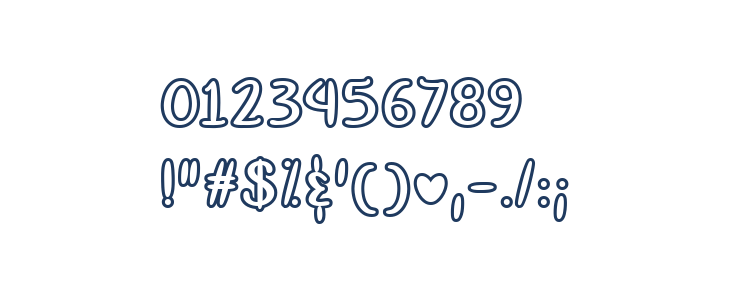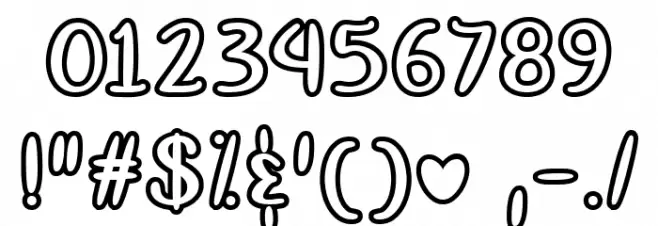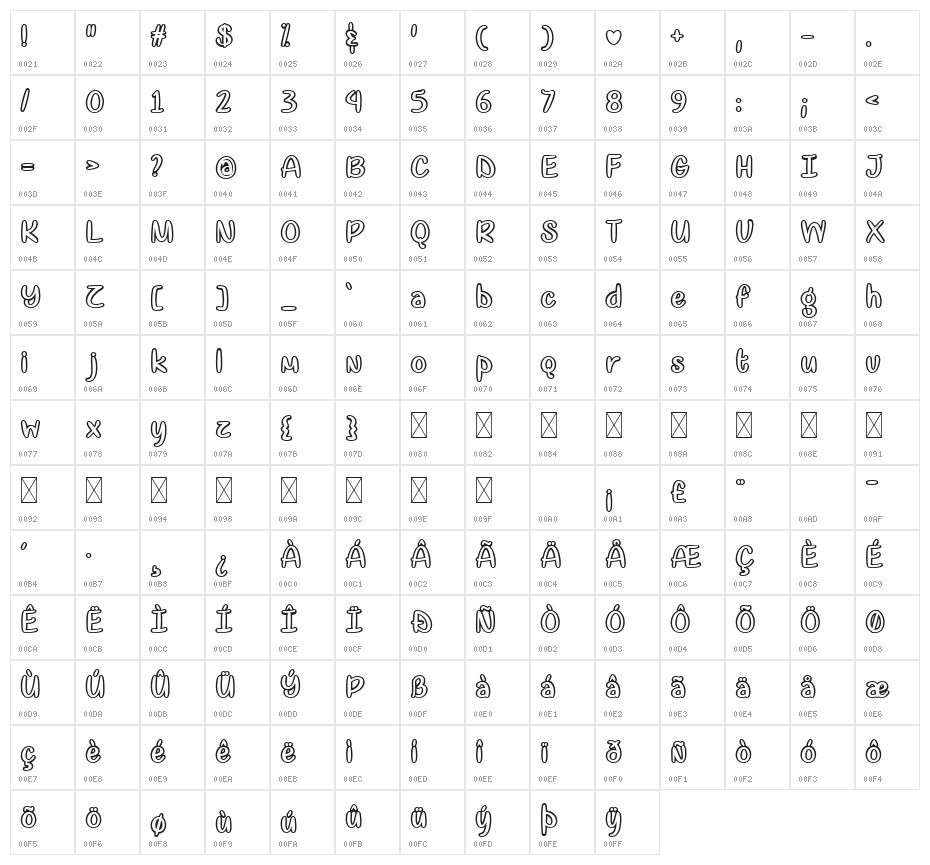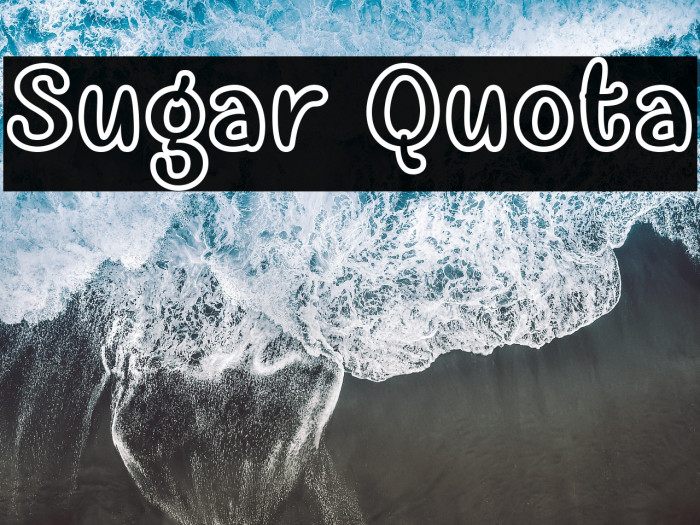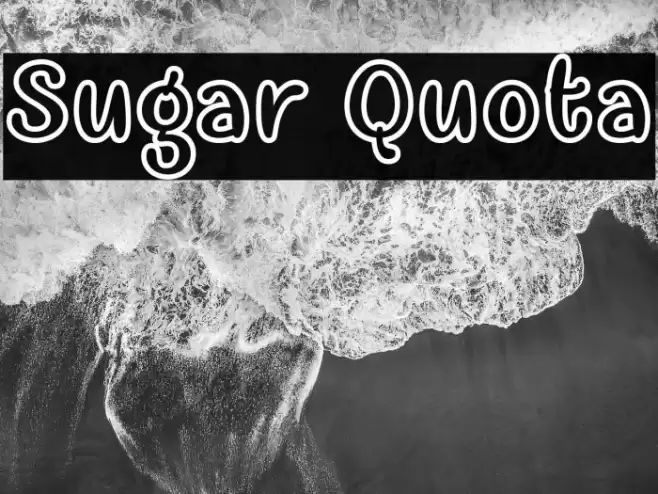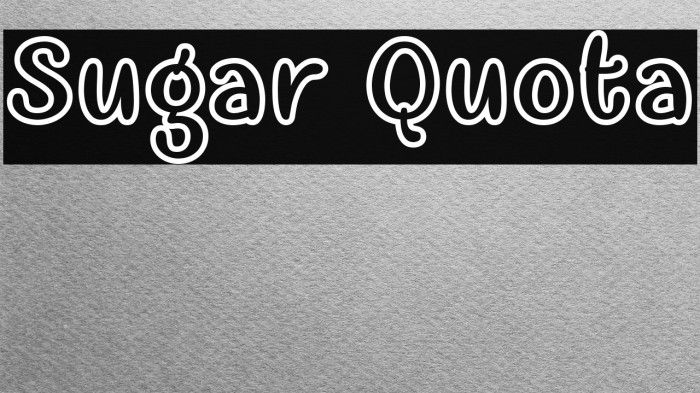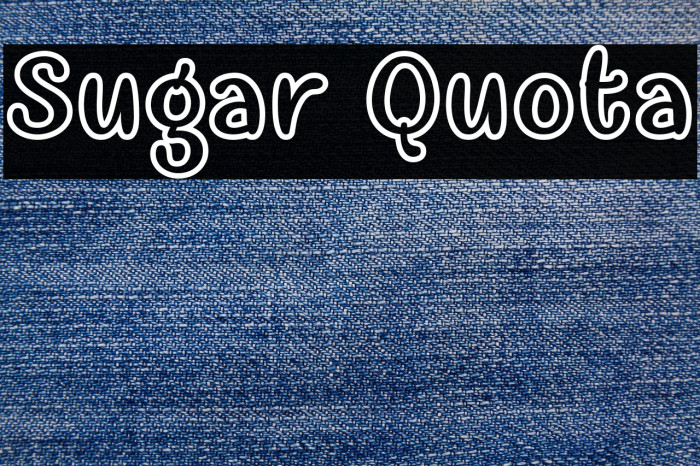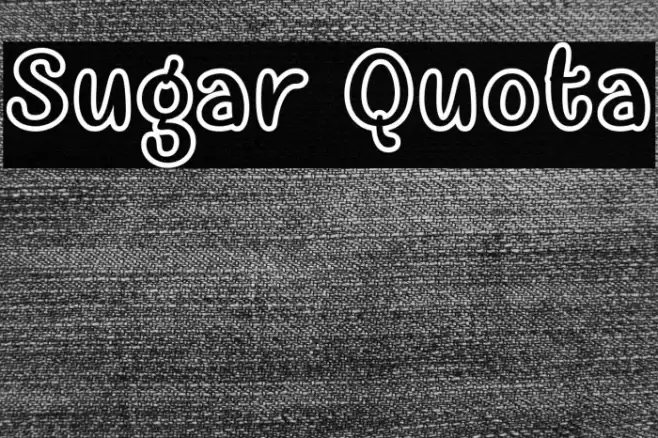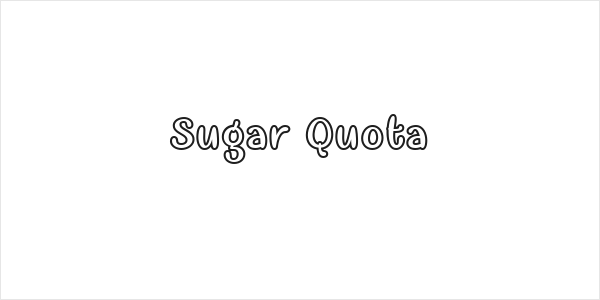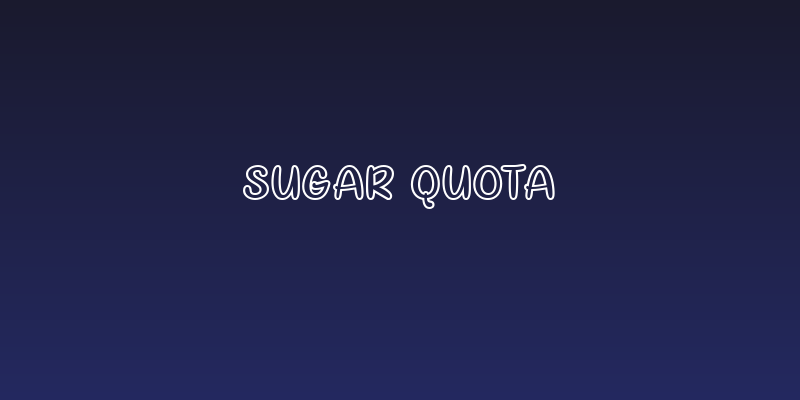
Sugar Quota Font
Sugar Quota Description
This playful and whimsical font features bold, rounded characters with a hand-drawn appearance. Each letter is outlined, giving it a bubble-like quality that adds a sense of fun and creativity. The uppercase and lowercase letters maintain a consistent style, with smooth curves and a slightly irregular baseline that enhances its casual, informal look. The numbers and special characters follow the same design principles, ensuring a cohesive appearance across all elements. This font's unique style makes it ideal for projects that require a touch of personality and charm.
| Proposed Projects | Perfect for children's books, playful branding, party invitations, and creative posters. |